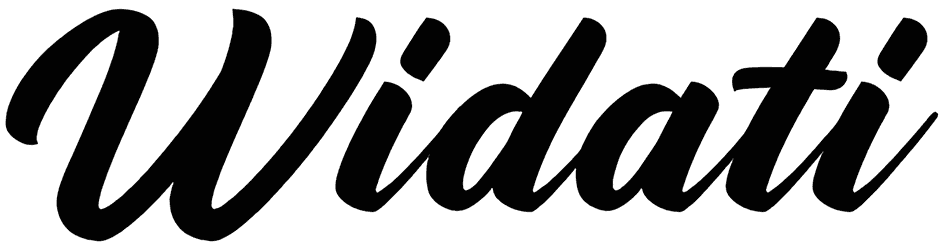
Widati Font
It’s worth a shot, script font with a jolly and fun looking can restore your inner child’s sense. Widati is exactly what you demand to create a high-level design in summer flyers, greeting cards, and product packaging.